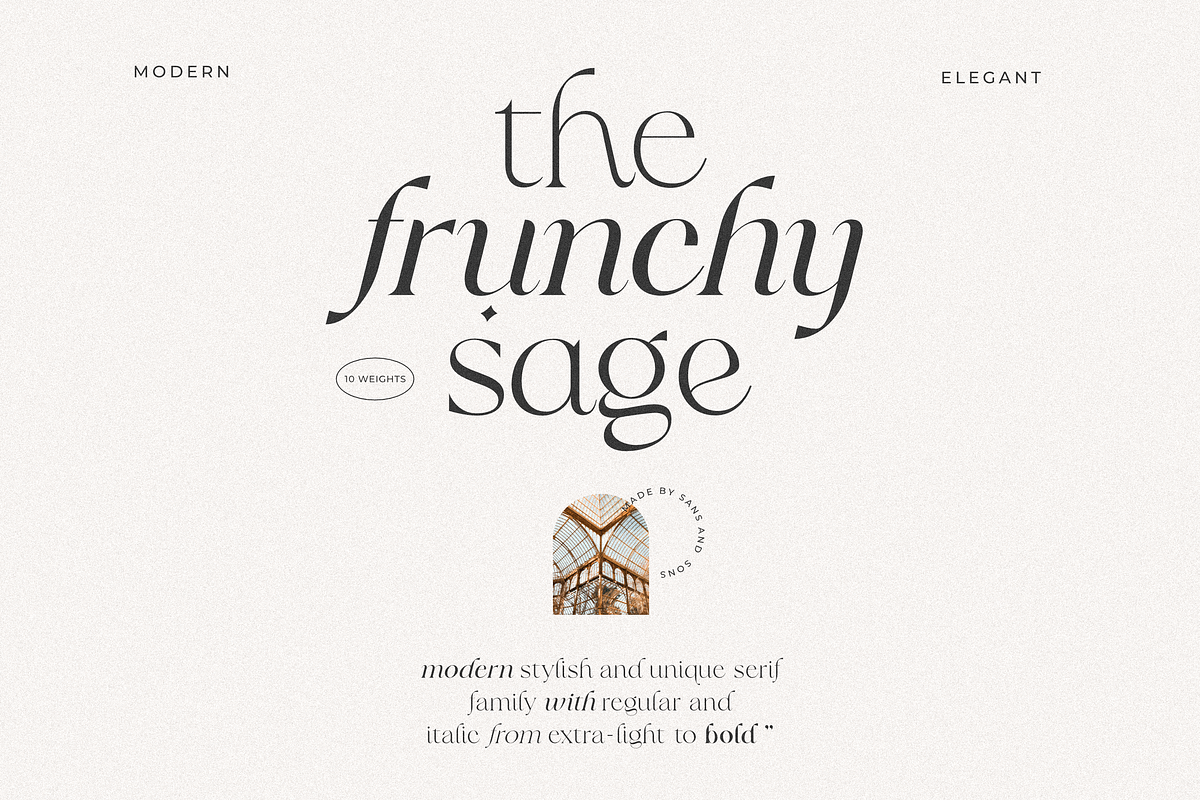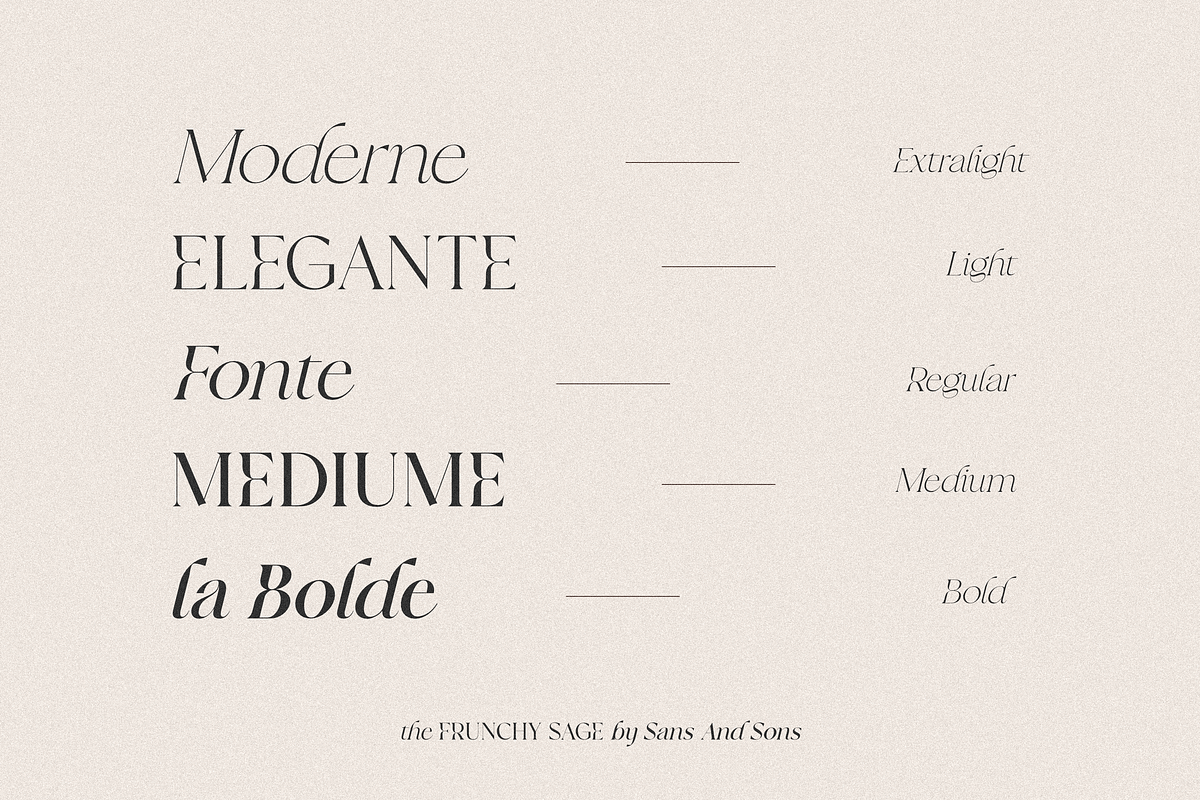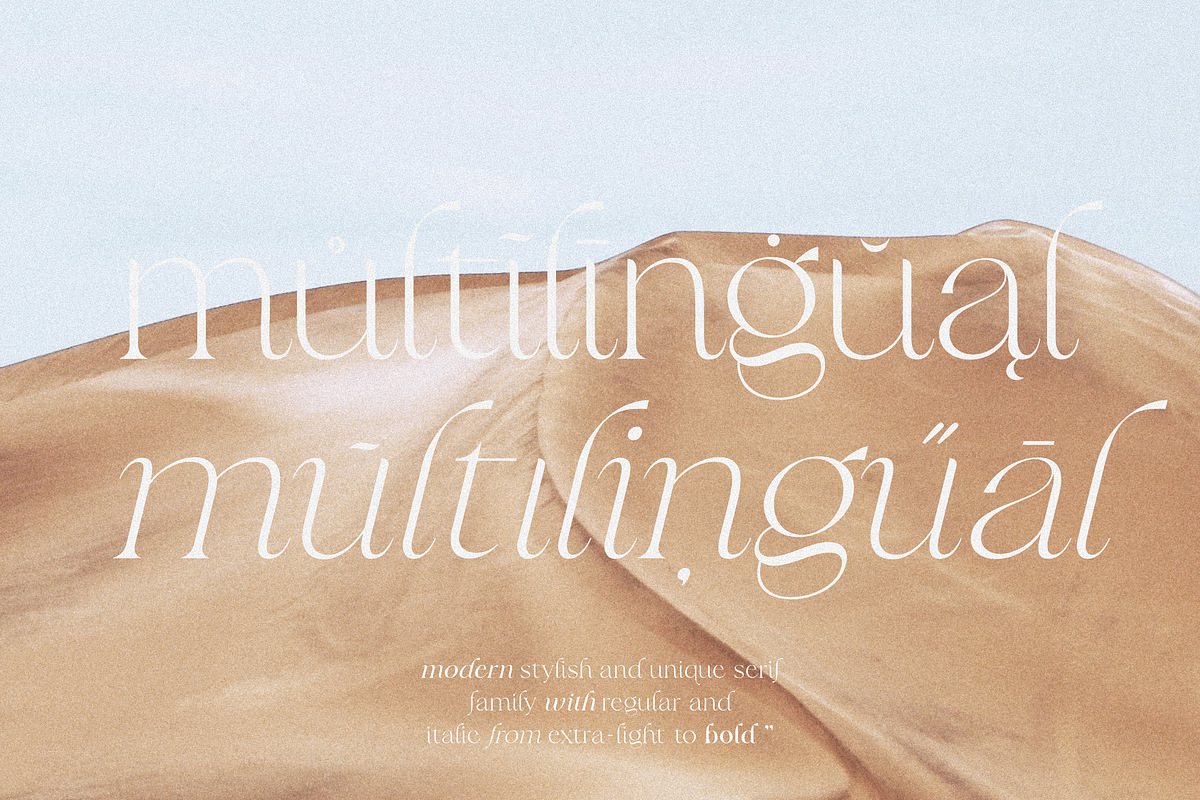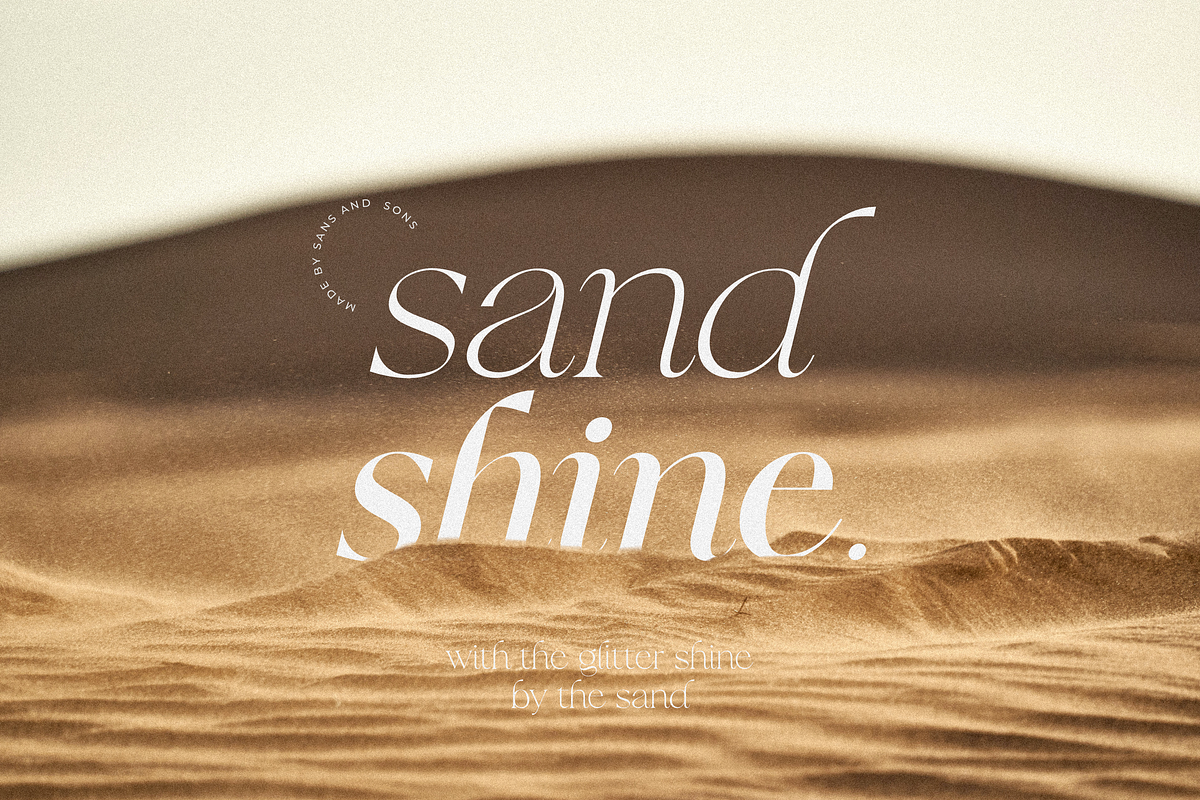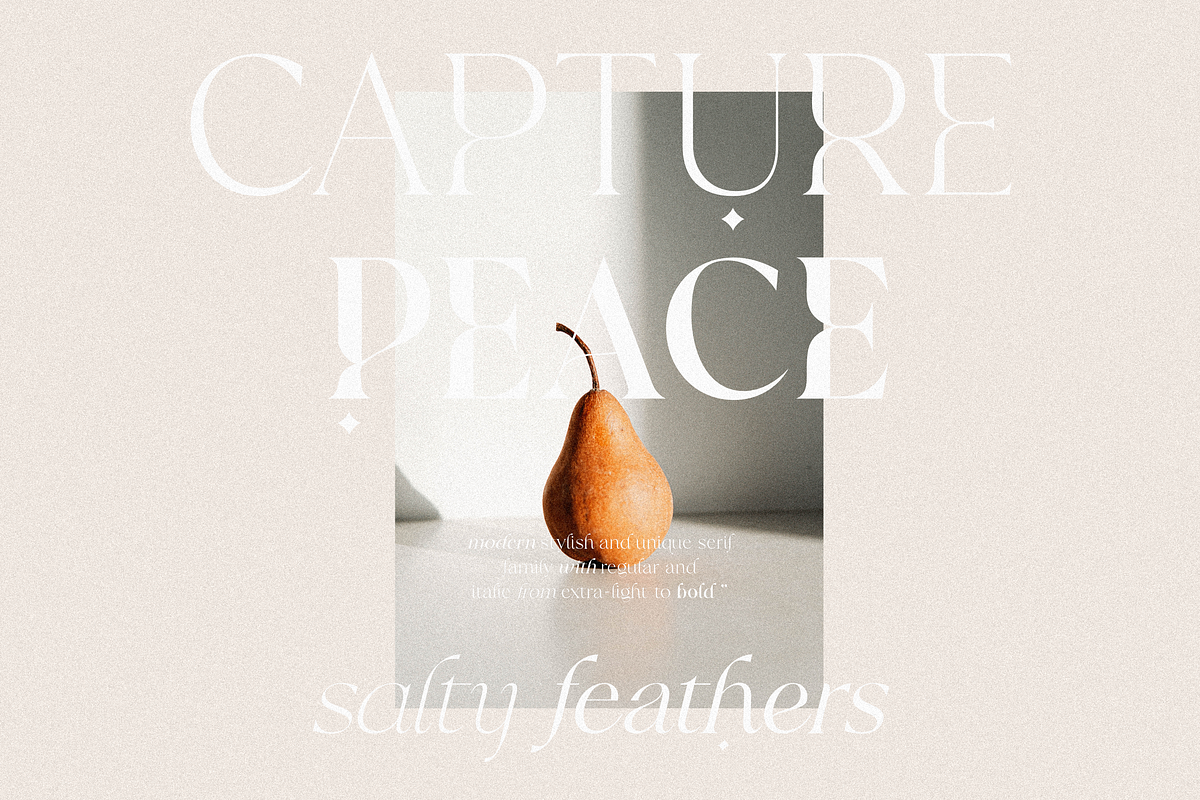
Frunchy Sage - Modern Serif Family
Frunchy Sage - Modern Serif Font Family by Sans and Sons
introducing our new "Frunchy" Modern Serif Family with Elegant style this is perfect for branding, logos, invitation, masterheads and more.
Frunchy Sage Features :
- Multilanguange
- Font Family totals 10 fonts